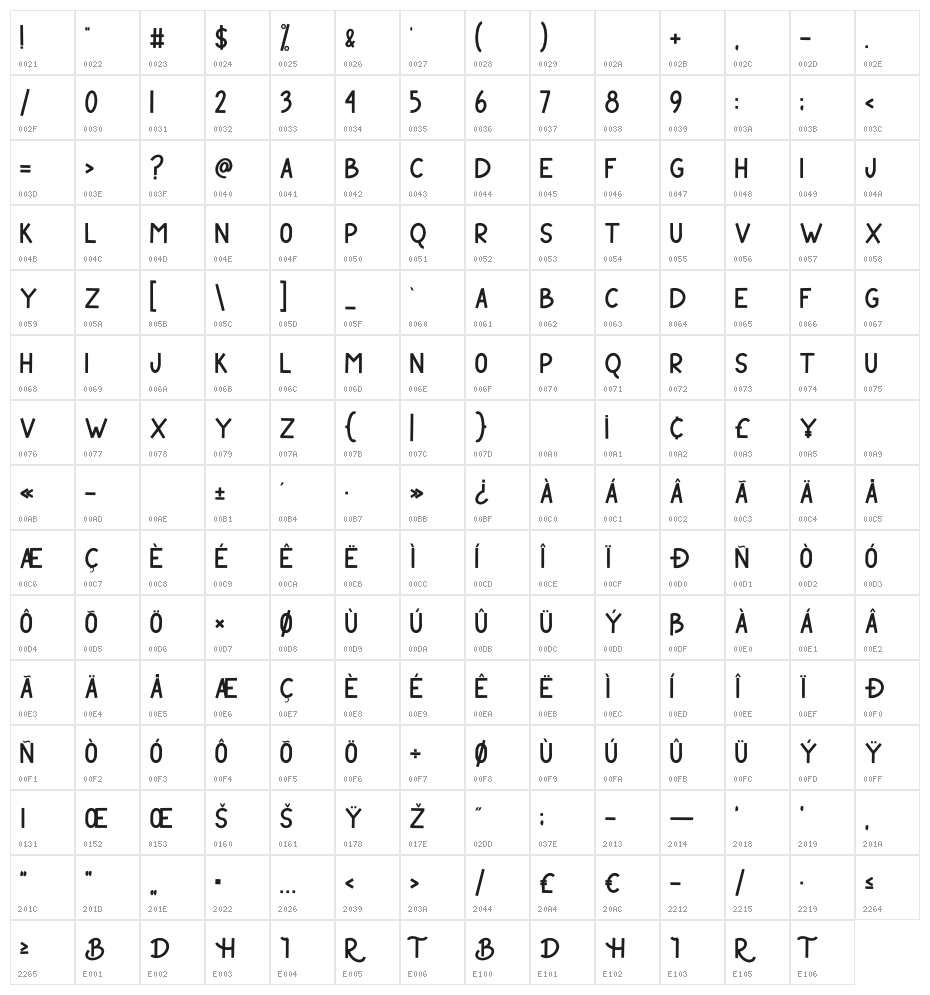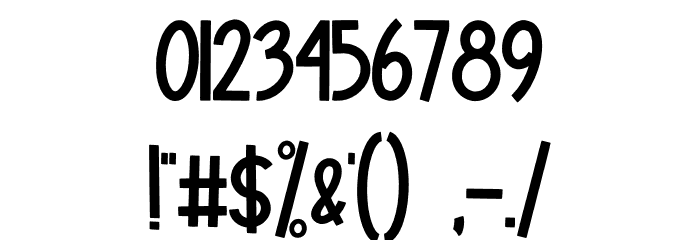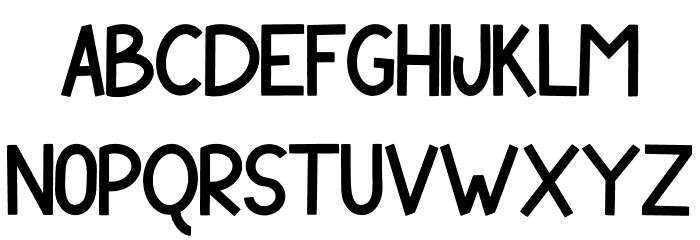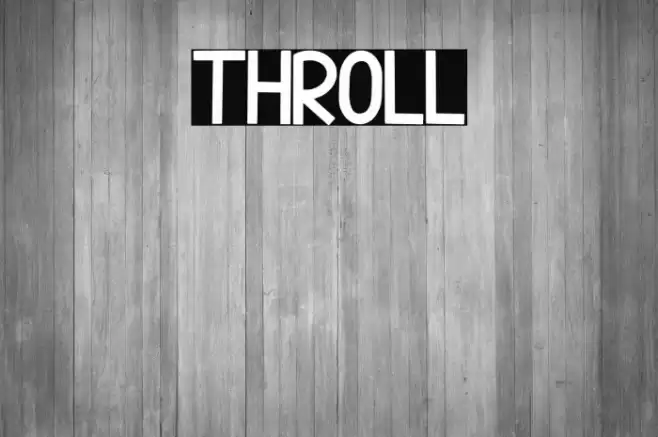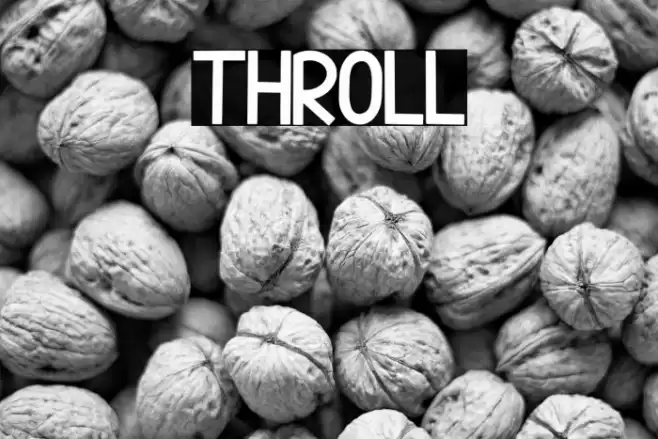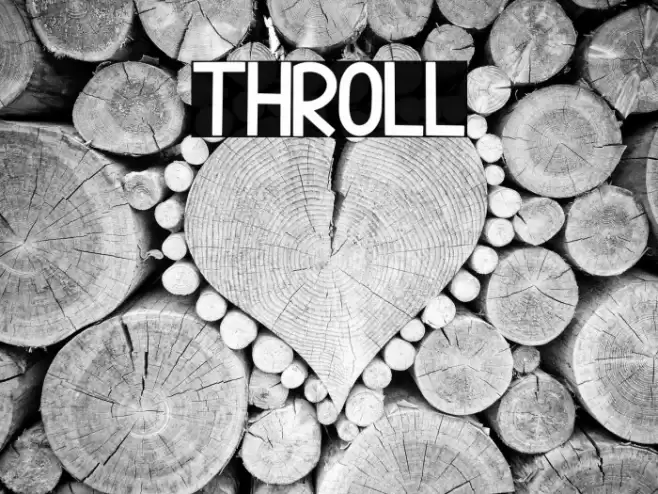
THROLL Font
THROLL Description
This font features a playful and bold style with slightly irregular shapes, giving it a hand-drawn appearance. The uppercase letters are prominent and well-defined, while the lowercase letters maintain a consistent flow. Numbers are clear and easy to read, matching the overall aesthetic. Special characters are creatively designed, adding to the font's unique charm. The overall look is casual yet impactful, making it suitable for a variety of creative projects.
| Overall Style | Playful, Casual, Hand-drawn |
| Proposed Projects | Ideal for children's books, comic strips, playful branding, and creative posters. |